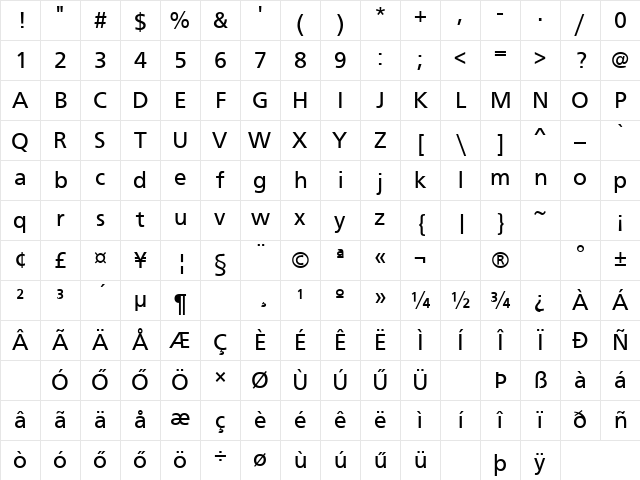
H_FOUR10 Regular
Design Context for H_FOUR10
H_FOUR10 is a composed and adaptable typeface that performs quietly and consistently across a wide range of design contexts.
Pro Tip: Use H_FOUR10 in both headline and body roles to test its range before committing to a single application.